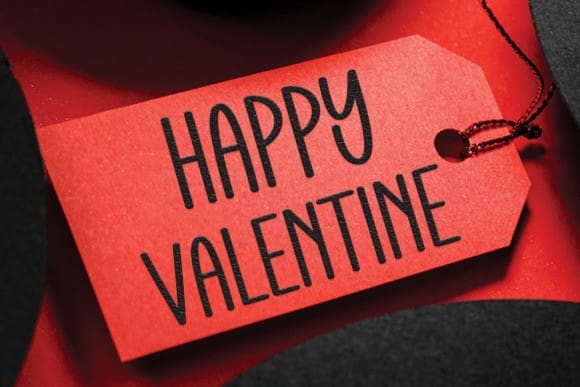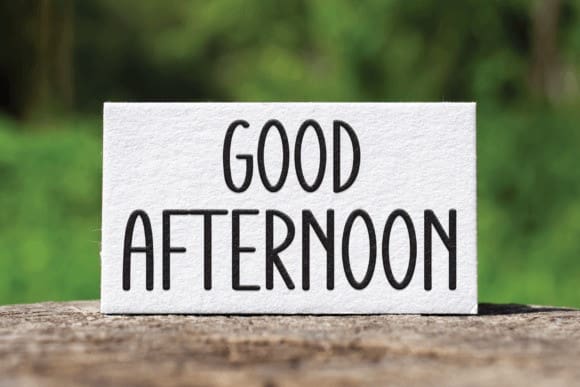
School Monday Font
School Monday Font is a sweet and friendly handwritten font. Fresh and neat, this font is ideal for writing wedding invitations, cards, or any other design that might need a fun touch!